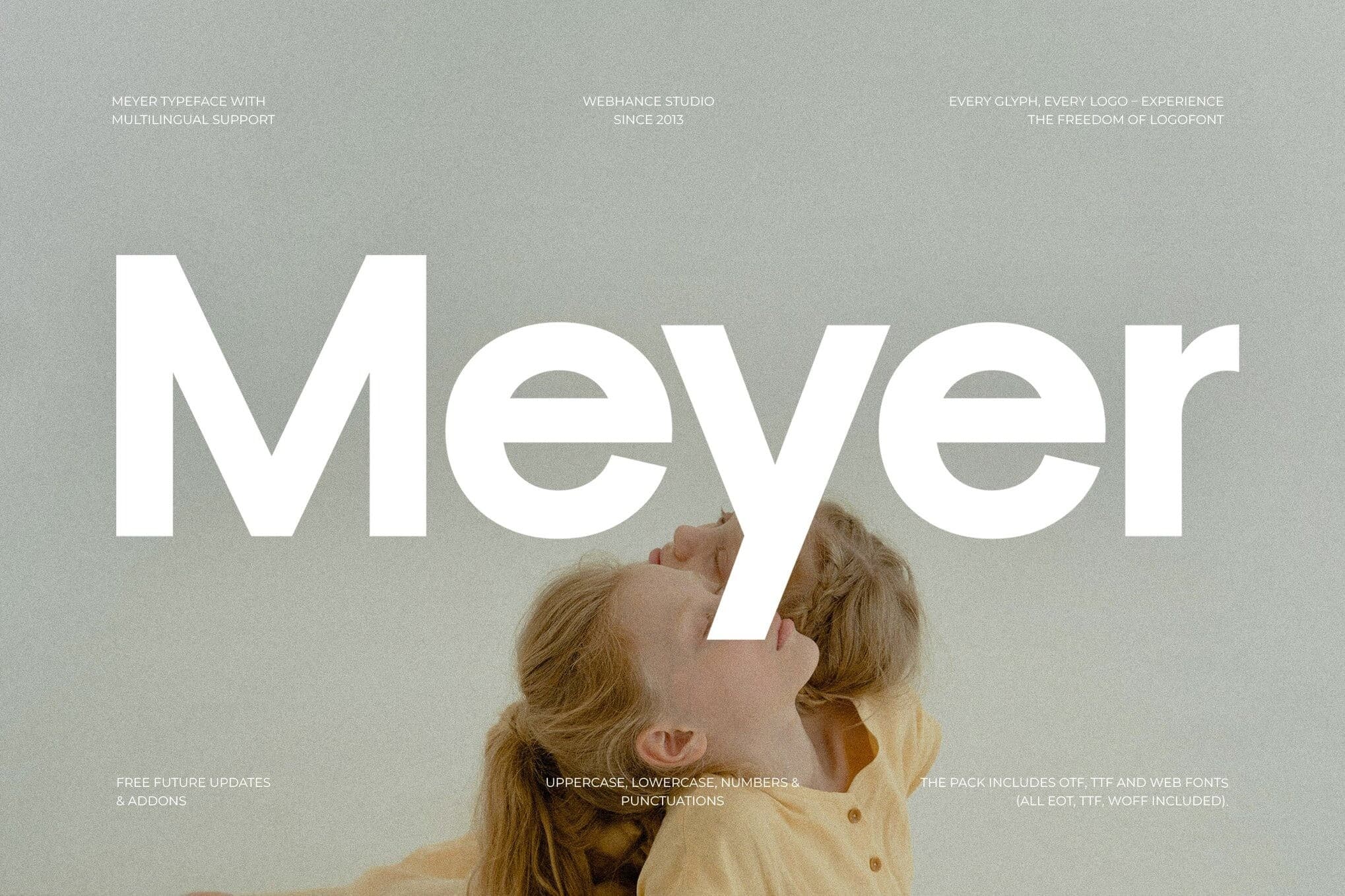
π Check out Meyer Font now! Explore this π sans serif fonts and claim your π free download here. Let's start crafting together! π Meyer β A Bold Typeface Weβre thrilled to introduce our newest font family, Meyer, crafted to enhance your creative ...